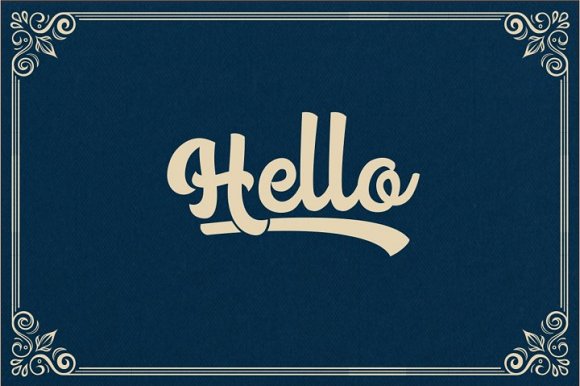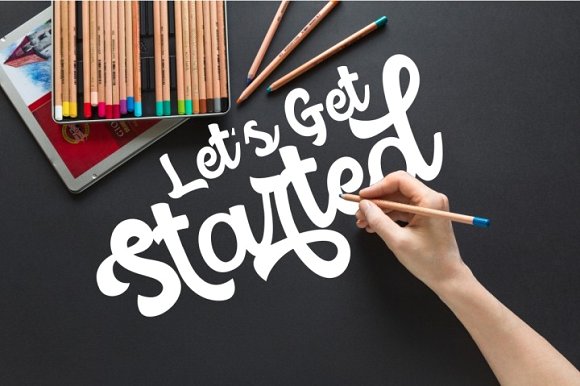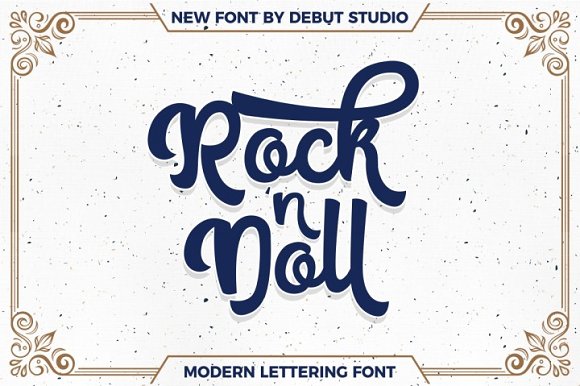
Rock ‘n Doll Script
Rock 'n Doll Script Font
Rock ‘n Doll Script Font
Introducing Rock ‘n Doll Script This font is for those of you who like modern and classic design, perfect for those of you who like logotype and classic and attractive stylish designs. You can make awesome logotype, quote for poster, branding, wedding invitation, and other.